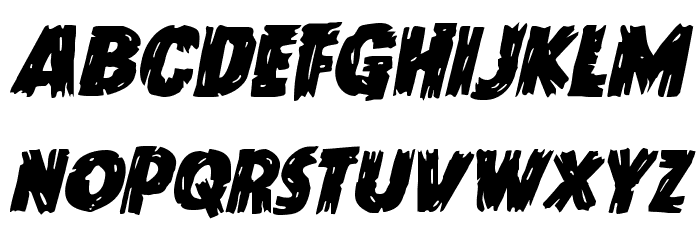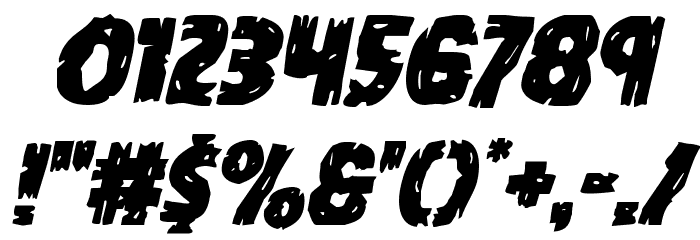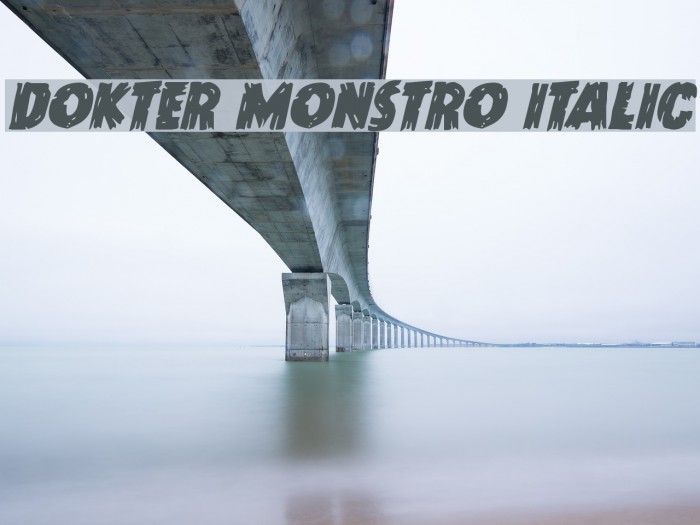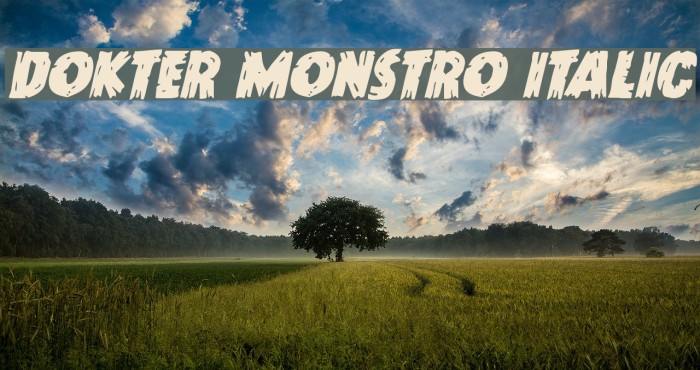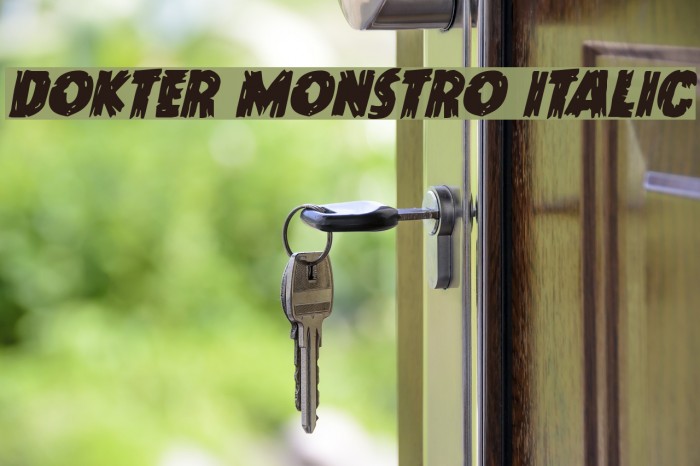
Dokter Monstro Italic Font
This font features a bold, dynamic style with a distressed, brush-like appearance. The characters are heavily stylized, with jagged edges and irregular strokes that give a sense of movement and energy. The uppercase and lowercase letters maintain a consistent design, while the numbers and special characters follow the same rugged aesthetic. This font is ideal for creating impactful and eye-catching designs, where a sense of urgency or excitement is desired.
A bold, distressed brush-style font with dynamic, jagged edges.
- Proposed Projects: Perfect for posters, album covers, video game titles, and any project requiring a bold, energetic look.
- Overall Style: Modern, Decorative